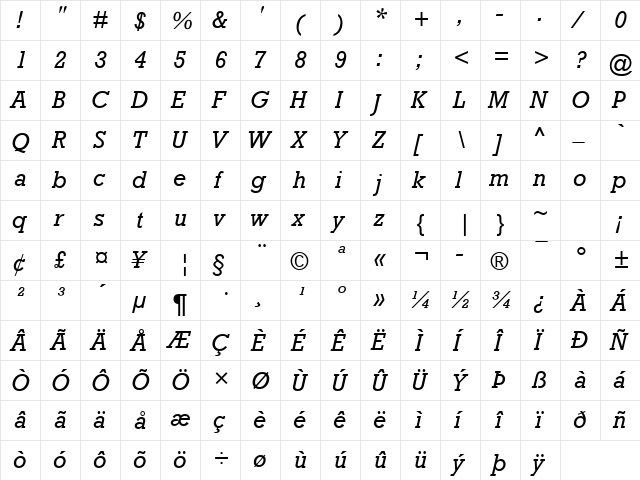
Rockwell MT Italic
| Foundry | Agfa Monotype Corporation |
Design Context for Rockwell MT Typeface
Rockwell MT takes a measured approach to typography — its balanced proportions and neutral character make it a reliable workhorse for both digital and print work. The slanted form adds forward momentum and visual energy.